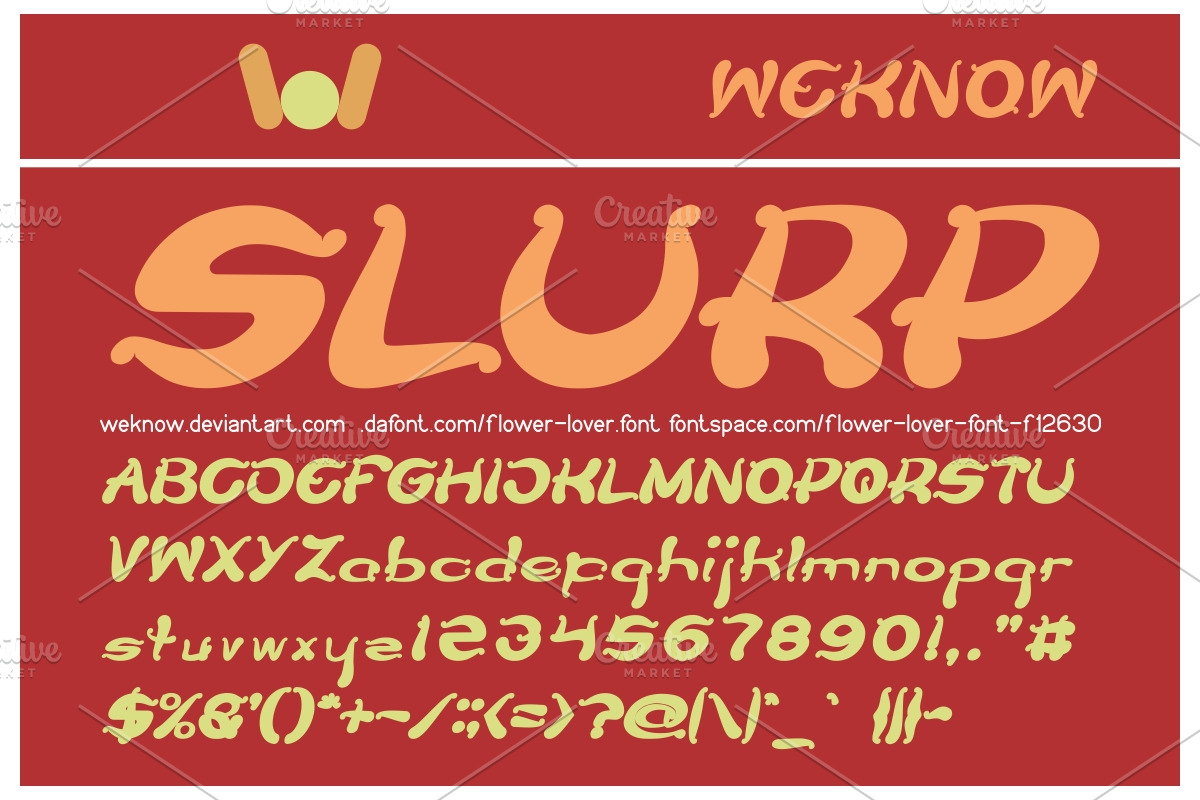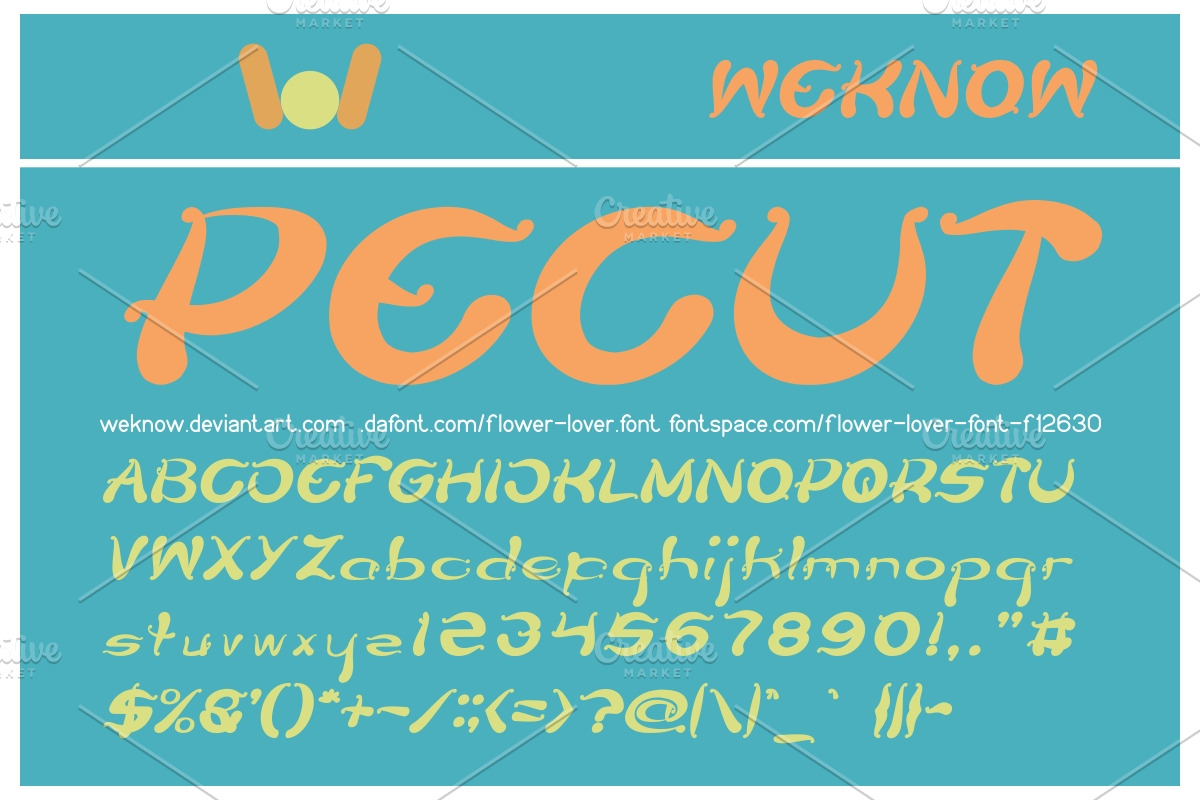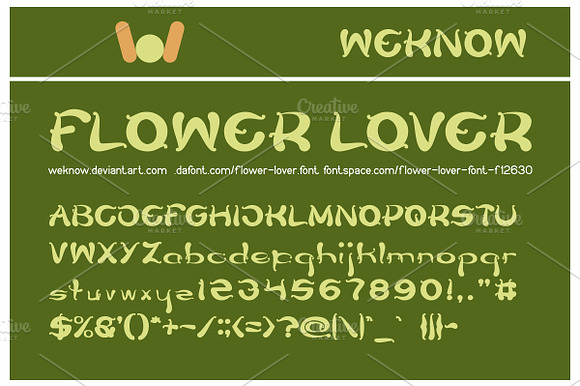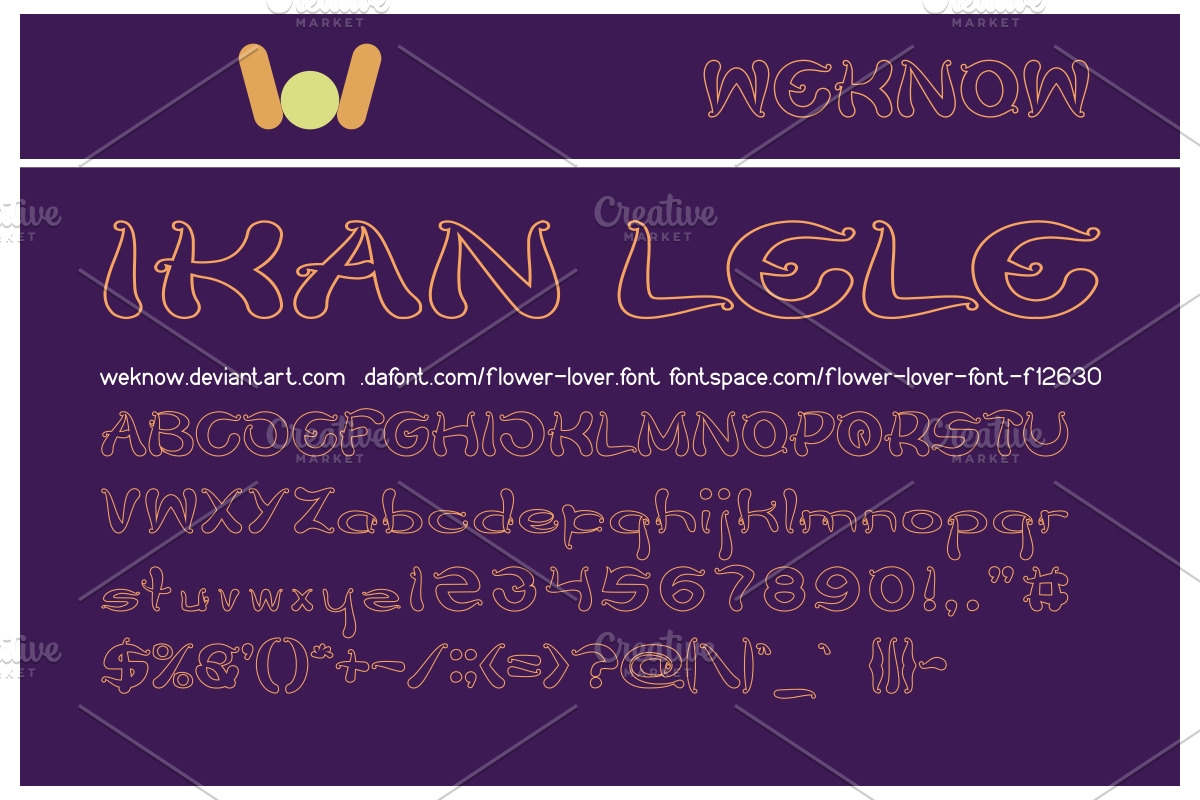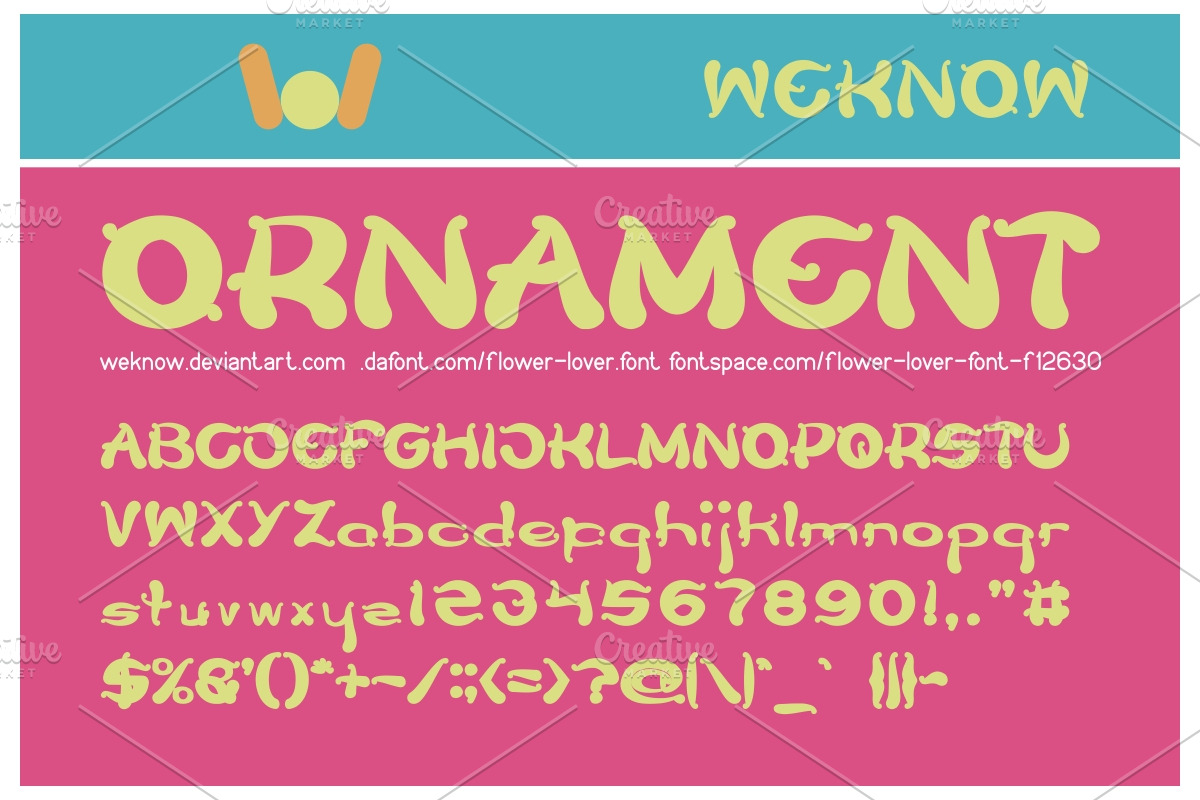
flower lover font
available style: Flower Lover-Italic, Flower Lover-Light, Flower Lover-Bold, Flower Lover-Bold-Italic, Flower Lover-Hollow, Flower Lover-Hollow-Inverse
Why flower lover font is worth a look
flower lover font by weknow fits naturally into Branding, posters, packaging, typography.